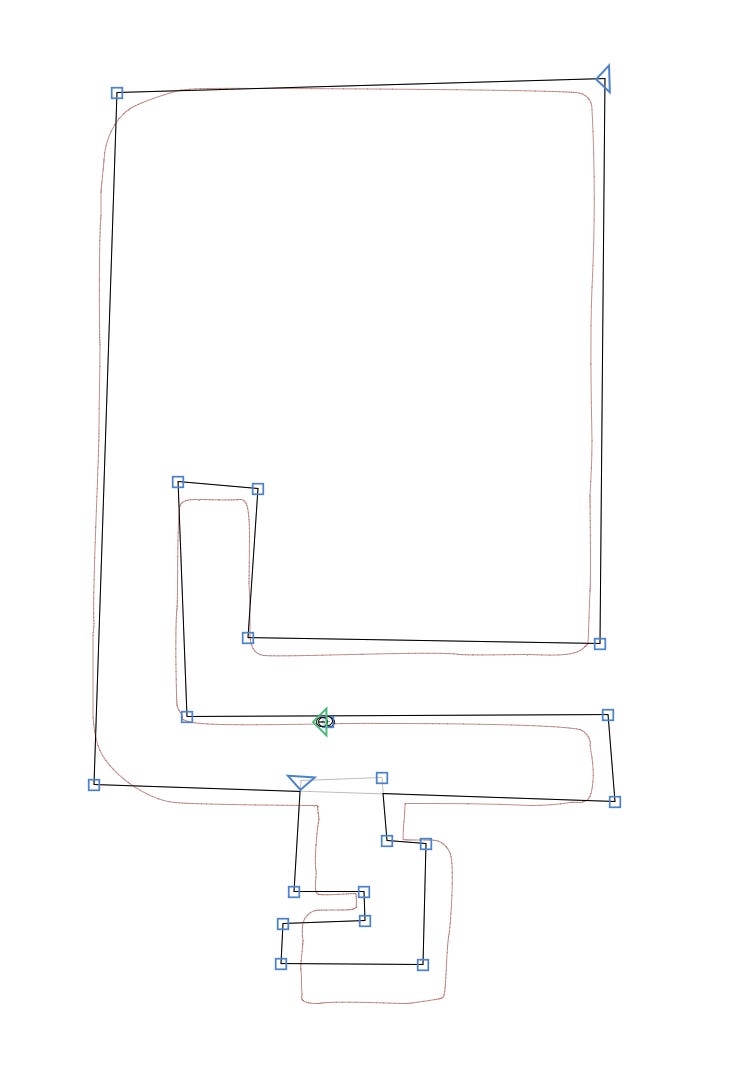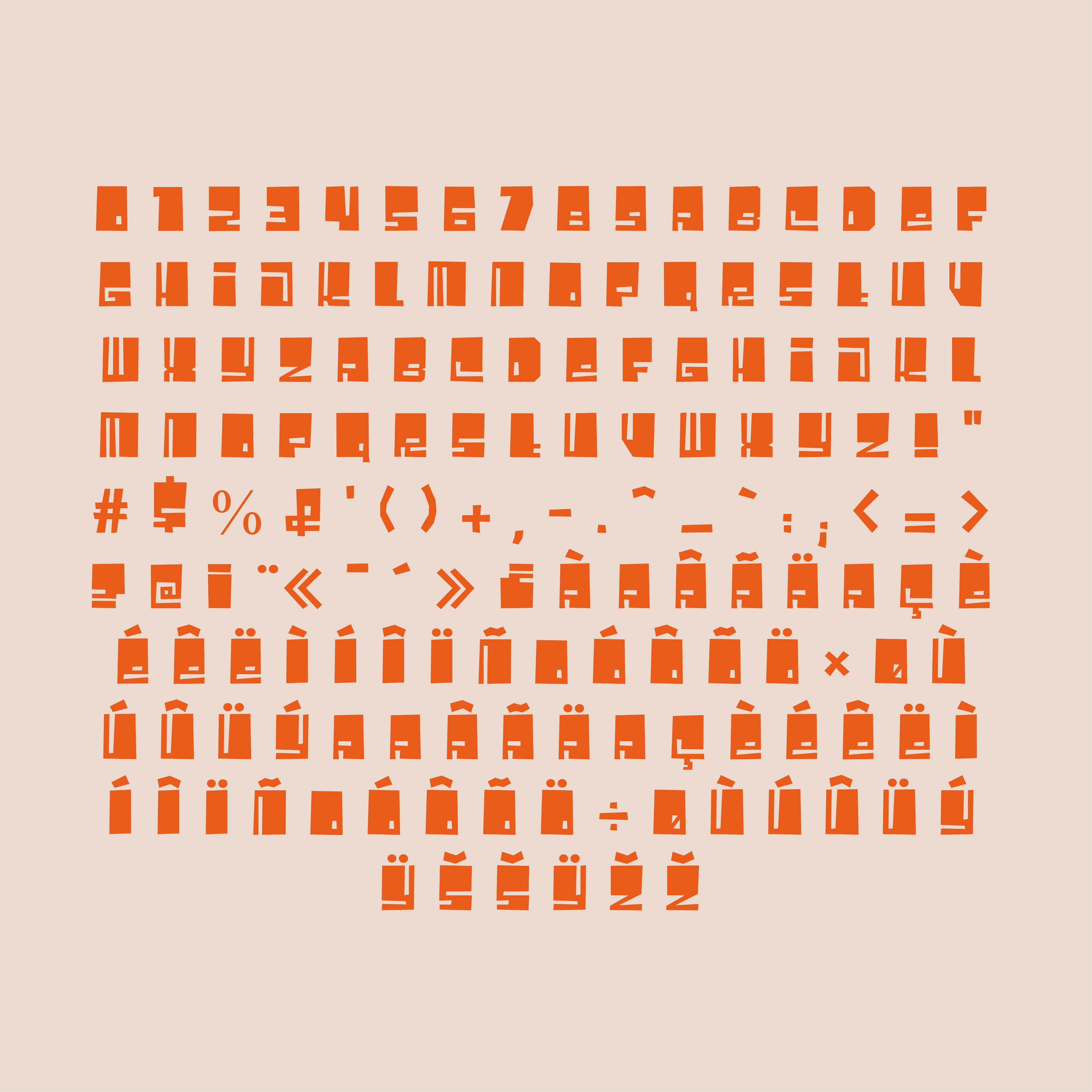
New Font!! Say Hi to Scusi Bruto!
Really happy to share with your the birth of that new member of the family!
There was no post last Friday and there is a good reason for that. I was finishing to work on the launch of Scusi Bruto, a new style of the Scusi family.
Yes Bruto is part of a larger family, and not a totally new typeface. Bruto is a “straight lined” version of Scusi. And it is really interesting because there is no big difference at first glance between the two styles but when you use them on a project, you realise they usually fit different matters.
Check out this screenshot of one of the glyphs. You see in the background the outline of a Ç from Scusi and the one of Scusi Bruto in front.
As you see, there are no curves, just straight lines. I called it Bruto because it is like a not polished version of Scusi. It comes in many latin languages.
It can be used in many many cases, like mid century illustration, vintage retro posters but also 3D animation movies. And this is what I particularly like about Bruto: it works in many cases. Here are some mockups I made and I will share over the next days on the social medias. But you can say you got them first!! :)
How do you like Woofy, huh??
So yes, I really think Scusi Bruto can be a great addition to your fonts collection, especially because it has a great identity that can bring a bigger personality to your projects.